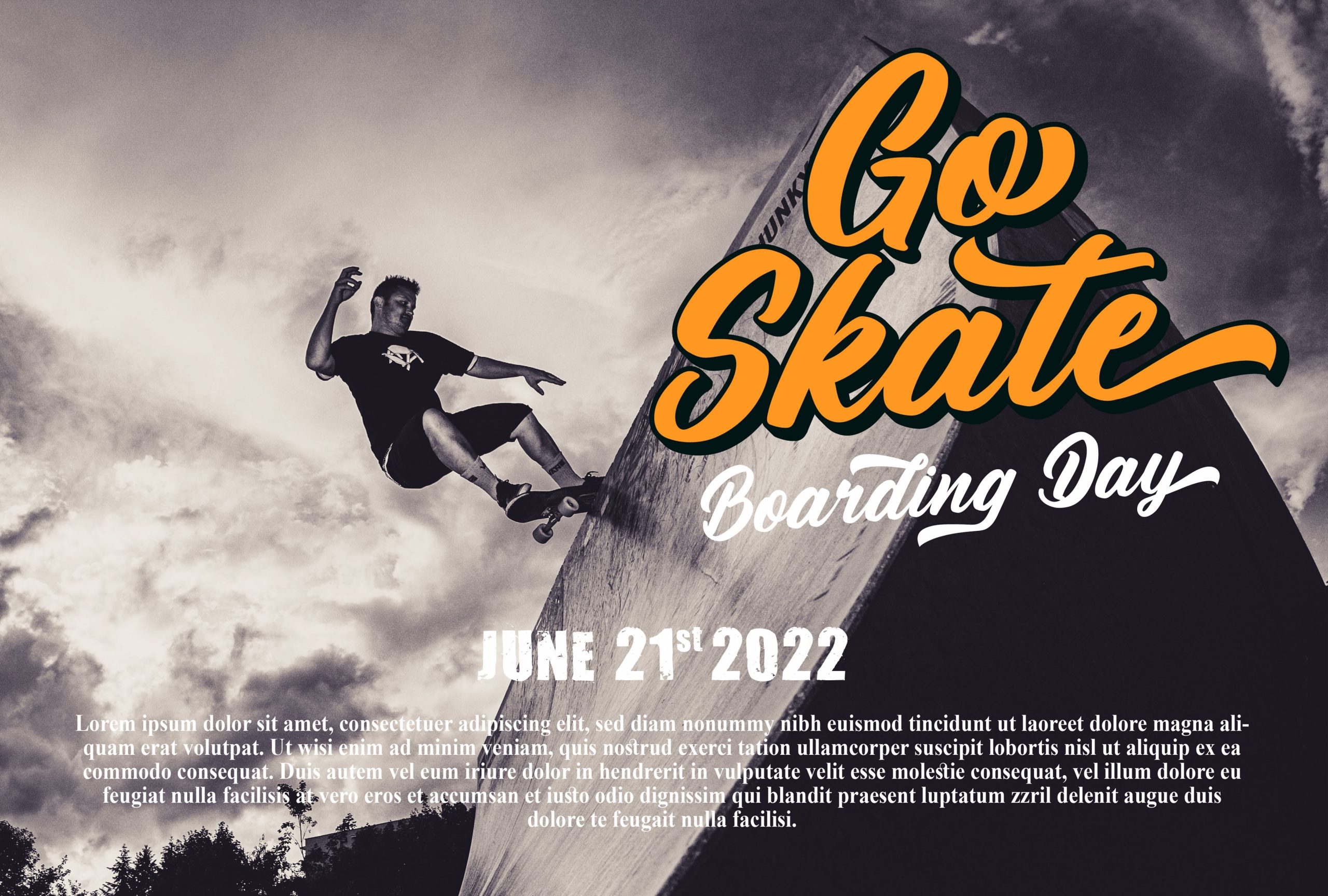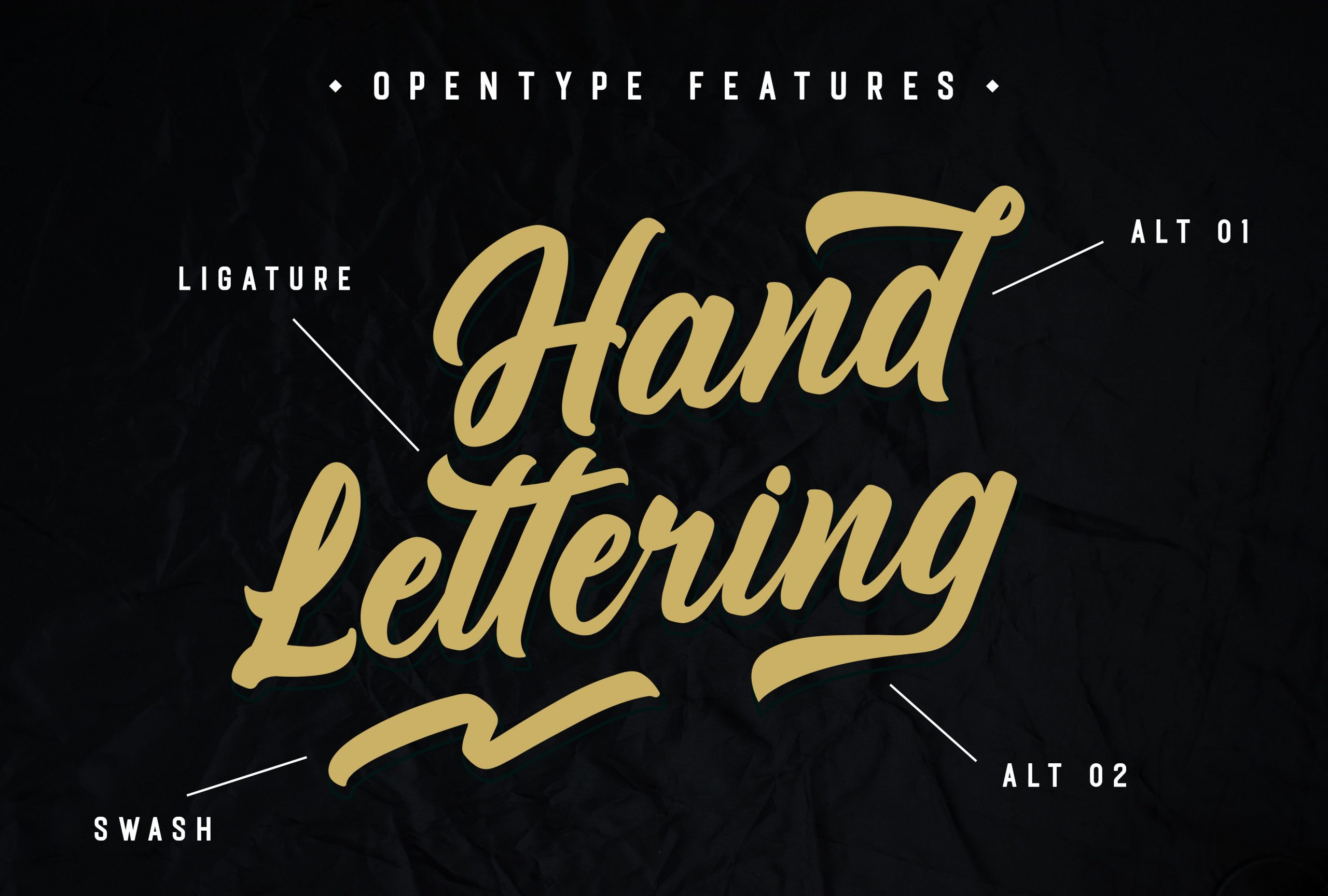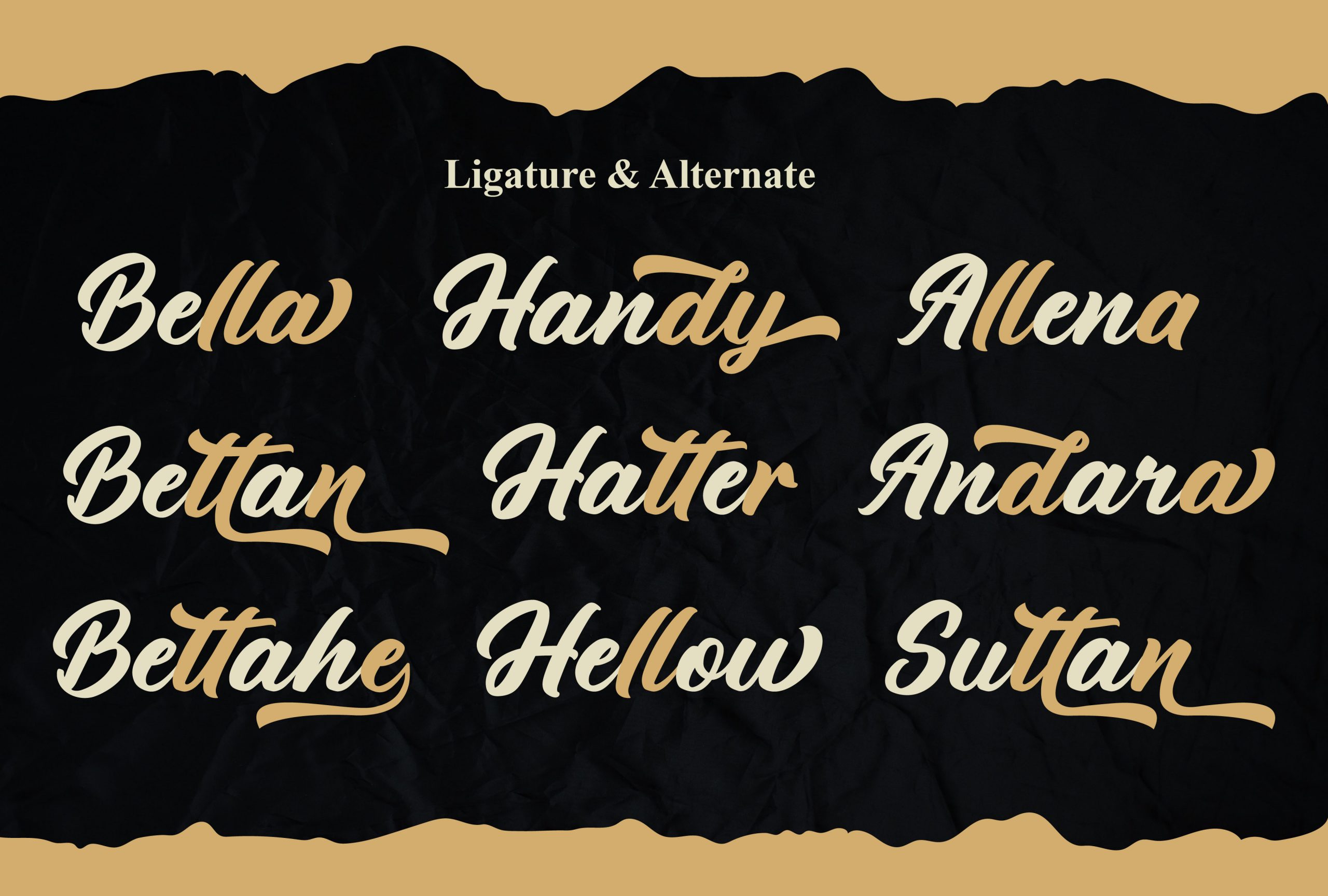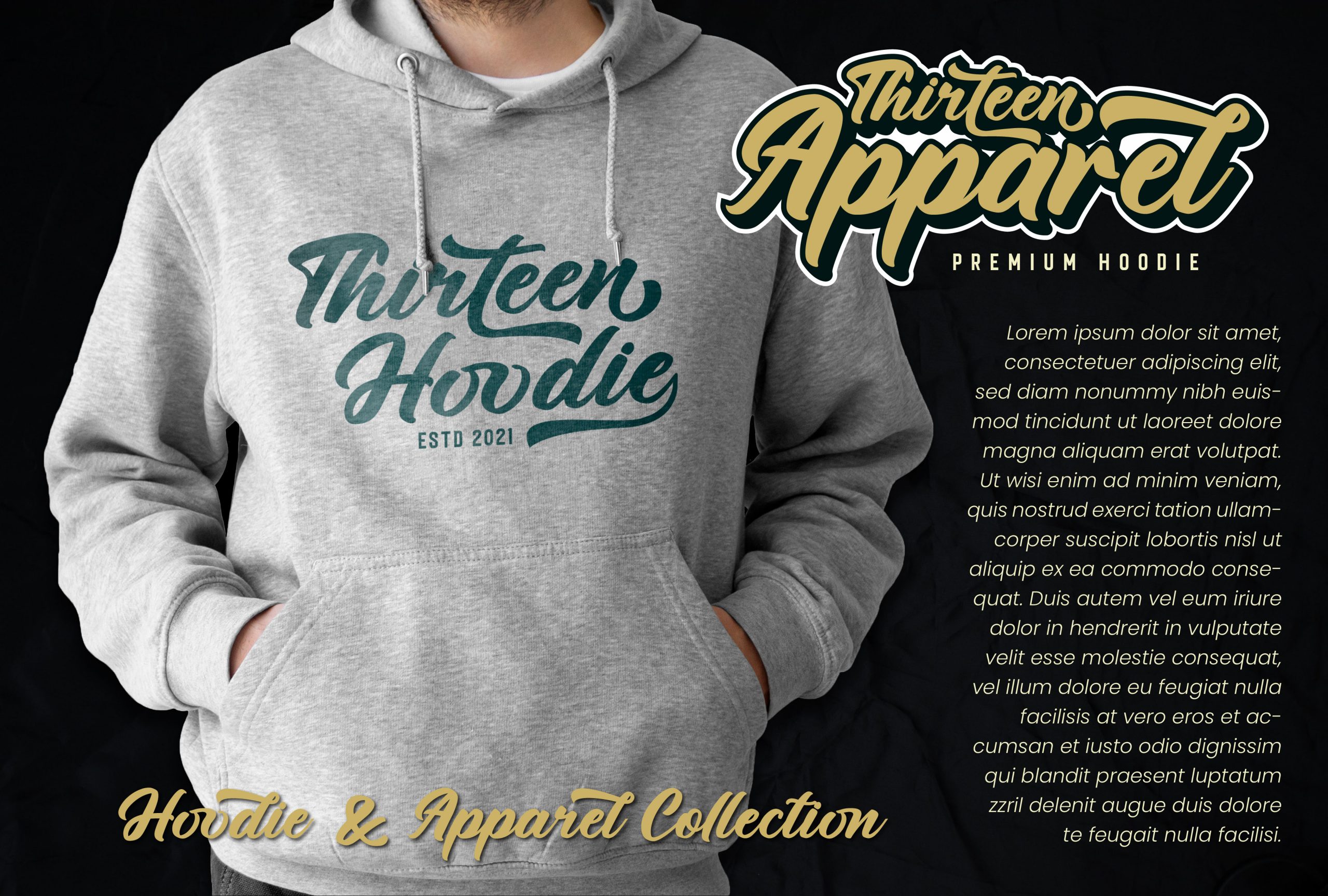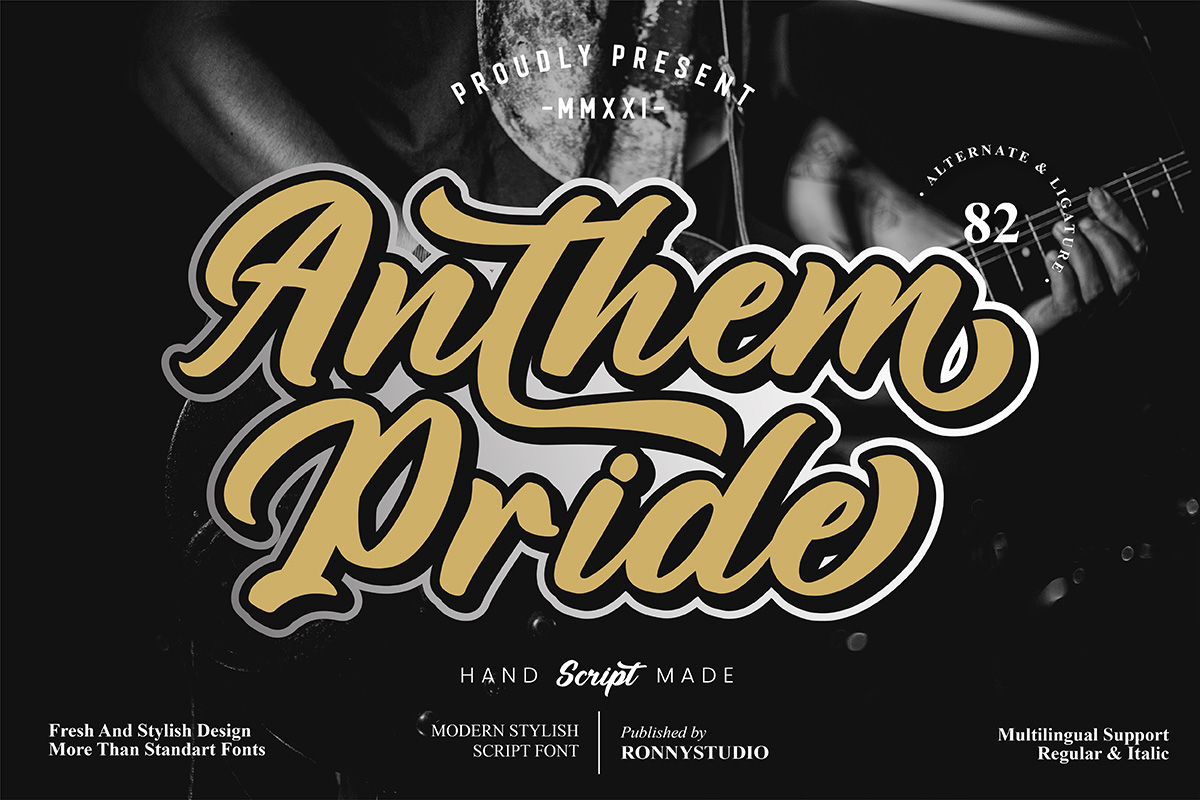
Anthem Pride Font
Anthem Pride Script Font
It’s an enchanting handwritten font. This versatile script font has a wide spectrum of applications ranging from greeting cards to headlines. Anthem Pride is PUA encoded which means you can access all of the glyphs and swashes with ease!